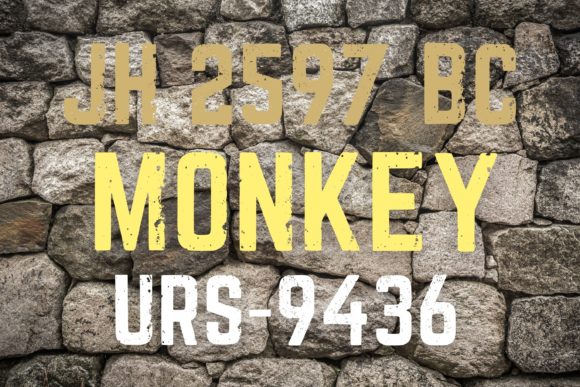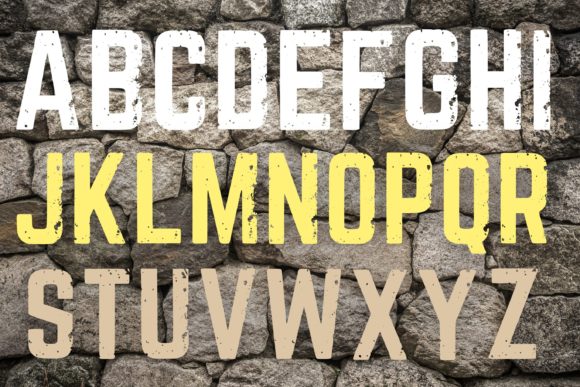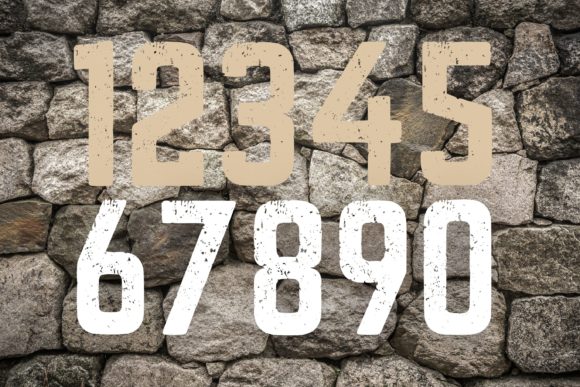
Unleash Your Creativity with Doctor Stone Font: A Rough Textured Display Font
Are you tired of using the same old fonts for your designs? Look no further! Introducing Doctor Stone Font, a cool, useful, and rough textured display font that’s perfect for adding a unique touch to your projects. In this article, we’ll dive into the features and benefits of Doctor Stone Font, and explore how you can use it to take your designs to the next level.
What is Doctor Stone Font?
Doctor Stone Font is a display font that’s designed to add a rough, textured look to your designs. Its unique texture gives it a rugged, organic feel that’s perfect for creating visually striking designs. Whether you’re a designer, crafter, or DIY enthusiast, Doctor Stone Font is a versatile font that can be used for a wide range of projects.
Features of Doctor Stone Font
- Unique Texture: Doctor Stone Font features a rough, textured look that’s unlike any other font. Its unique texture adds a tactile feel to your designs, making them stand out from the crowd.
- Versatile: Doctor Stone Font is perfect for a wide range of projects, including blog posts, logos, branding, ads, invitations, greeting cards, planners, photo albums, decorations, and more.
- High-Quality: Doctor Stone Font is a high-quality font that’s designed to produce crisp, clear results, even at large sizes.
Benefits of Using Doctor Stone Font
So why should you choose Doctor Stone Font for your designs? Here are just a few benefits of using this amazing font:
- Adds Visual Interest: Doctor Stone Font adds a unique, textured look to your designs that grabs attention and holds it.
- Perfect for DIY Projects: Doctor Stone Font is perfect for DIY enthusiasts and crafters who want to add a personal touch to their projects.
- Great for Branding: Doctor Stone Font is a great choice for branding and logos, as it adds a unique, memorable touch to your brand identity.
- Easy to Pair: Doctor Stone Font pairs well with a wide range of other fonts, making it easy to create visually striking combinations.
- Choose Your Project: Think about the type of project you want to create, and choose the right size and style of font to suit your needs.
- Experiment with Pairings: Try pairing Doctor Stone Font with other fonts to create unique, visually striking combinations.
- Get Creative: Don’t be afraid to experiment and try new things with Doctor Stone Font. Its versatility and unique texture make it perfect for a wide range of creative projects.
Project Ideas for Doctor Stone Font
So what can you create with Doctor Stone Font? Here are a few project ideas to get you started:
- Blog Posts: Add a touch of personality to your blog posts with Doctor Stone Font.
- Logos and Branding: Use Doctor Stone Font to create a unique, memorable brand identity.
- Invitations and Greeting Cards: Add a personal touch to your invitations and greeting cards with Doctor Stone Font.
- Planners and Organizers: Use Doctor Stone Font to create visually striking planners and organizers.
- Decorations: Add a touch of personality to your home decor with Doctor Stone Font.
In conclusion, Doctor Stone Font is a cool, useful, and rough textured display font that’s perfect for adding a unique touch to your designs. Its versatility, unique texture, and ease of use make it a great choice for designers, crafters, and DIY enthusiasts alike. So why not give it a try and see what amazing projects you can create?